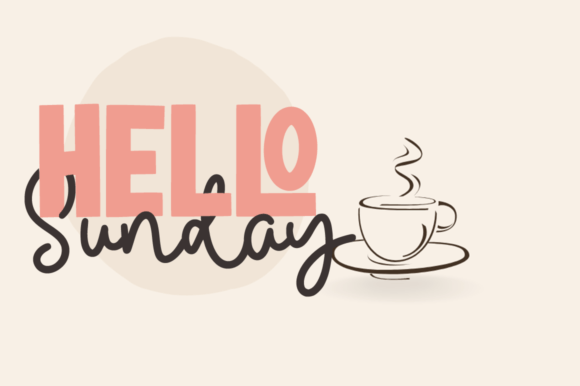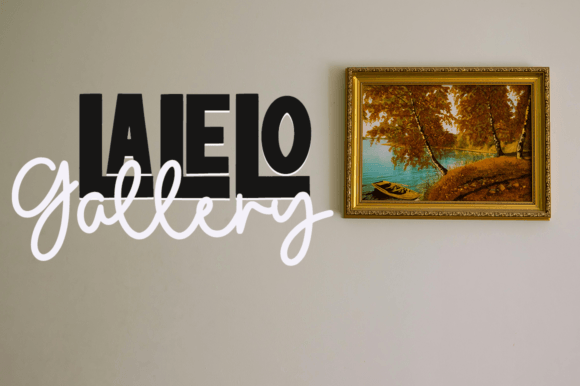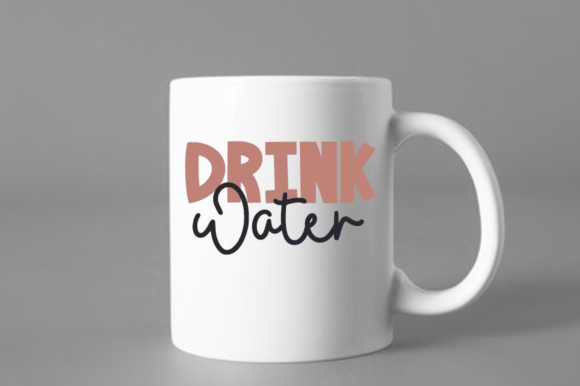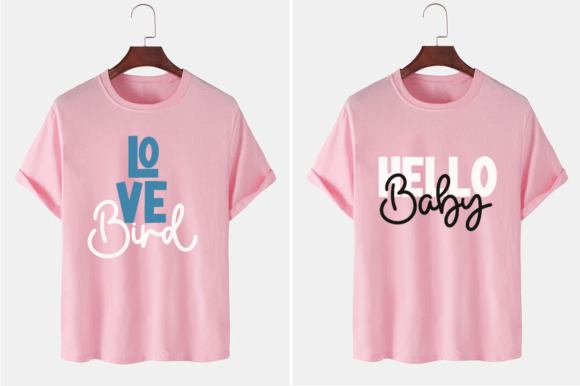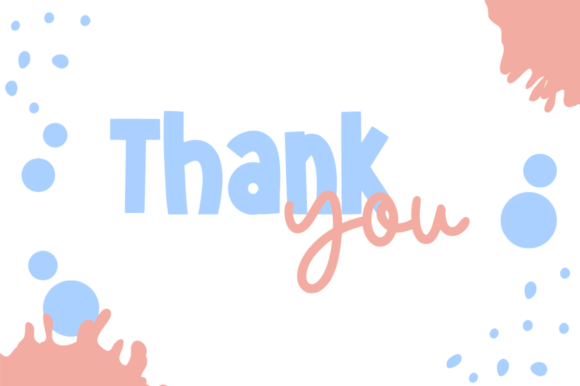
Discover the Delightful Clean Wash Font: Elevate Your Designs with a Lively Duo-Font Collection
Are you on the lookout for a font that can instantly add a touch of modern charm and entertainment to your designs? Look no further than Clean Wash, a dynamic duo-font collection that is sure to captivate your audience with its poreless attraction. This versatile font is an invaluable addition to any designer’s stockpile, and its wide range of applications will leave you wondering how you ever managed without it.
The Allure of Clean Wash
Clean Wash is more than just a font – it’s an experience. Its lively and contemporary charm makes it perfect for a variety of themes and projects. Whether you’re designing for children, crafting festive décor, or creating fashion-forward t-shirt prints, Clean Wash is the ideal choice. Its unique blend of playfulness and sophistication will instantly elevate your designs and leave a lasting impression on your audience.
Endless Possibilities with Clean Wash
One of the standout features of Clean Wash is its versatility. This duo-font collection can be deployed together or separately, making it incredibly flexible and adaptable to a wide range of design needs. Here are just a few examples of the many ways you can use Clean Wash to bring a touch of magic to your projects:
- Children’s Events: Create eye-catching invitations, posters, and decorations for kids’ parties and events with Clean Wash’s playful and lively vibe.
- School Assignments: Add a touch of personality to school projects and presentations with Clean Wash’s clean and modern aesthetic.
- Festive Décor: Use Clean Wash to create stunning festive decorations, such as garlands, banners, and signs, that will add a pop of color and fun to any celebration.
- Birthday Invitations: Make your birthday invitations stand out with Clean Wash’s vibrant and energetic style.
- Summer Motifs: Bring the sunshine into your designs with Clean Wash’s bright and cheerful font, perfect for summer-themed projects.
- T-Shirt Prints: Create fashion-forward t-shirt designs that will appeal to anyone with Clean Wash’s trendy and modern look.
- Craft Projects: Add a personal touch to your craft projects, such as handmade cards, gift tags, and scrapbook pages, with Clean Wash’s whimsical charm.
- Stickers: Design standout stickers that will grab attention with Clean Wash’s bold and colorful font.
- Sublimation Designs: Use Clean Wash to create vivid and stunning sublimation designs that will make your products pop.
Why Clean Wash is a Must-Have for Designers and Crafters
Clean Wash is more than just a font – it’s a design powerhouse. Its unique combination of style, versatility, and playfulness makes it an essential tool for designers and crafters who want to take their projects to the next level. Here are just a few reasons why Clean Wash should be in your design vocabulary:
- Instantly Elevate Your Designs: Clean Wash adds a touch of modern charm and sophistication to any project, making it instantly more engaging and appealing.
- Save Time: With Clean Wash, you can create stunning designs in no time, thanks to its easy-to-use and intuitive font styles.
- Stand Out from the Crowd: Clean Wash’s unique and playful style ensures that your designs will stand out from the crowd and leave a lasting impression on your audience.
| Author | cocodesign |
In conclusion, Clean Wash is a lively duo-font collection that is sure to become a staple in any designer’s or crafter’s toolkit. Its versatility, playfulness, and modern charm make it perfect for a wide range of projects and applications. Whether you’re designing for fun or for business, Clean Wash is the perfect choice for anyone looking to elevate their designs and take their creativity to the next level. So why wait? Discover the delightful Clean Wash font today and start creating stunning designs that will leave a lasting impression on your audience.